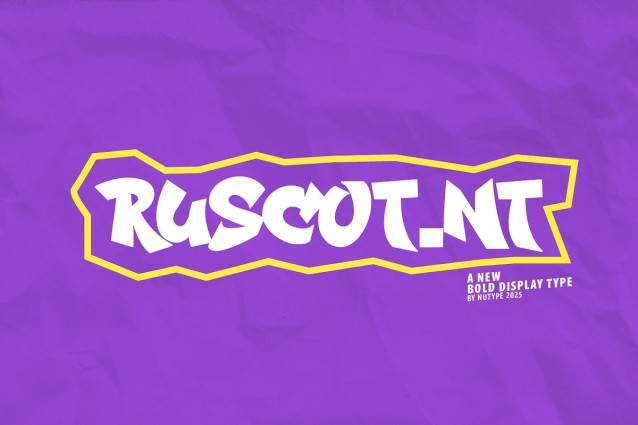
Ruscot Display Font
Ruscot Display Font a bold display typeface designed to make a statement. With its strong, confident letterforms and high-impact style, this font is perfect for headlines, posters, branding, advertising, and any creative project that demands attention. Ruscot adds an instant dose of power and personality to your typography.